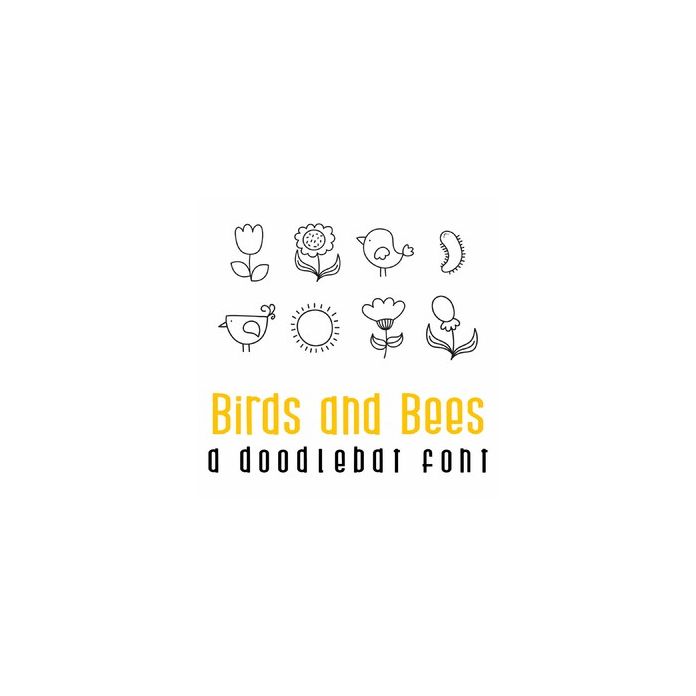
This fun doodlebat font features 26 spring and summer doodles of flowers, birds, bees and more! Perfect for cards, gifts, decor, crafts, scrap book pages, planner stickers and more!